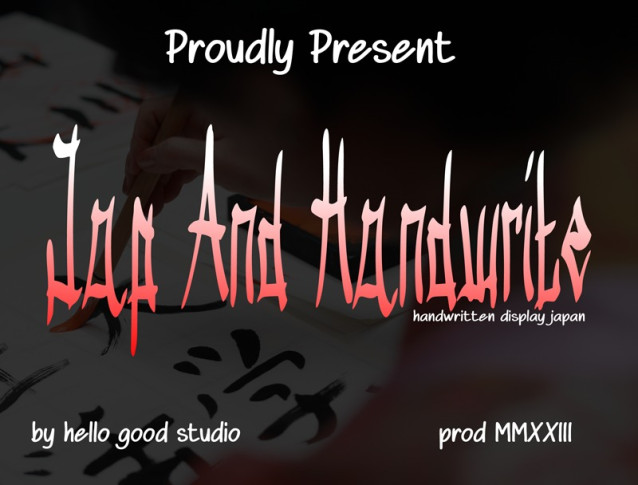
Jap And Handwrite Font is a beautiful japanese, asian handwritten display brush font. You can use it for anything ranging from t-shirts, book designs, and greeting cards to stickers and posters, packaging designs, or anything that needs a casual touch, it will be your perfect font to pick. Fall in love with its incredibly versatile style, and use it to create lovely designs!
Jap And Handwrite Font